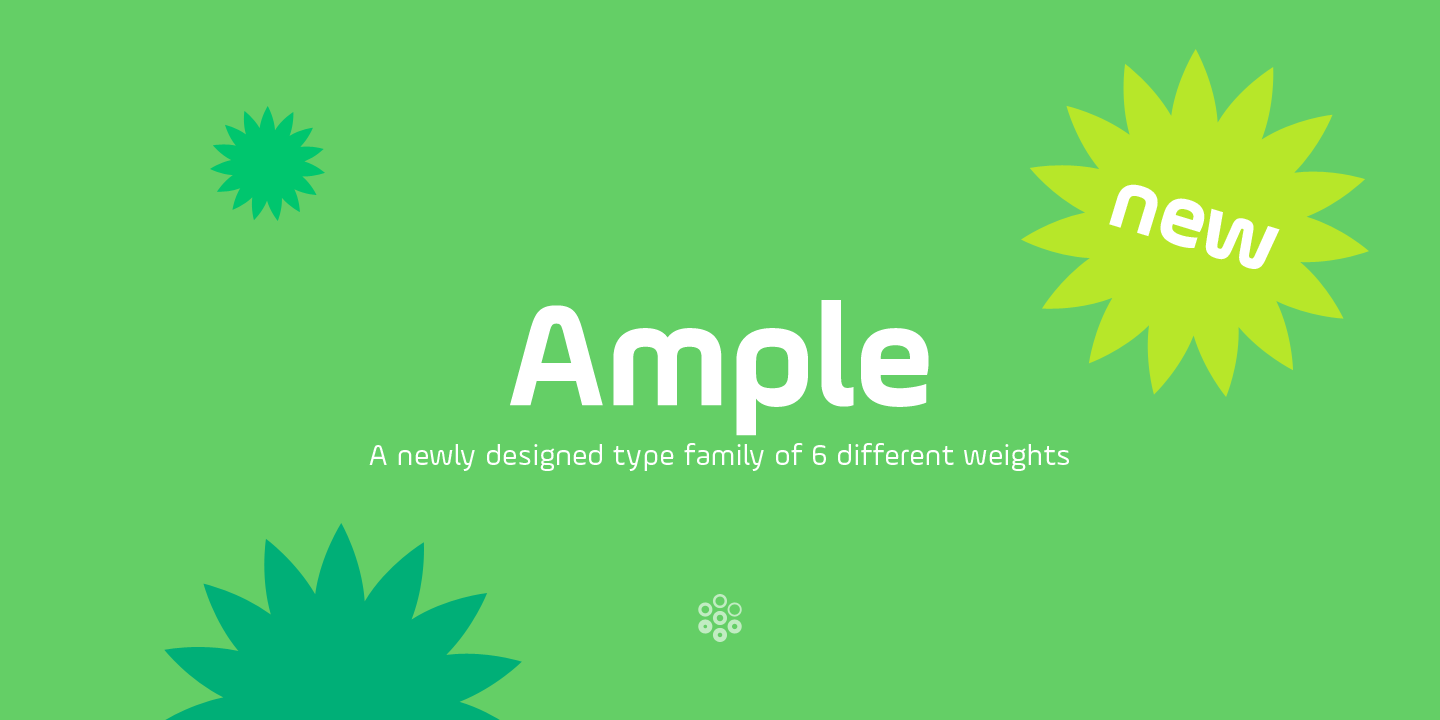
The Ample Font excels in various design applications including generous hospitality branding, abundant lifestyle marketing, spacious architectural communications, comfortable furniture company identities, welcoming retail environments, expansive real estate promotions, luxury resort materials, family-friendly restaurant signage, warm community center communications, and inclusive brand systems that demand openness and generous visual appeal.
What makes the Ample Font exciting is its embodiment of generosity and spaciousness through letterforms that create an atmosphere of abundance, comfort, and welcoming inclusivity. This typeface demonstrates exceptional character through its open construction and generous proportions that suggest plenty of room for everyone and everything, creating typography that feels naturally accommodating and inherently optimistic. The font's abundant personality makes it perfect for brands seeking to communicate hospitality, generosity, and inclusive values through typography that literally provides ample space for content while creating positive emotional connections with audiences seeking comfort and belonging.
The Ample Font family typically includes comprehensive weight variations that maintain the generous character proportions, featuring open italic styles with enhanced readability and extended character sets supporting diverse linguistic communities. These family options often include condensed variants that preserve the welcoming feel while accommodating space constraints, along with specialized symbols and inclusive design elements that enhance the font's utility for community-focused communications and hospitality applications.
Hospitality industry professionals and community-oriented organizations consistently choose Ample Font Free Download for projects requiring typography that creates welcoming atmospheres and communicates generous values. This typeface delivers exceptional performance in hospitality branding, community communications, and inclusive marketing where establishing comfort and demonstrating genuine care for audience well-being is essential for building trust and loyalty. The font's spacious character makes it particularly effective for family-oriented and accessibility-focused applications. Download Ample Font Free Download today to access this welcoming typeface that transforms communications with its generous spirit and inclusive sophistication, creating compelling experiences that demonstrate abundance, hospitality, and genuine care for human comfort while maintaining exceptional readability and contemporary appeal.